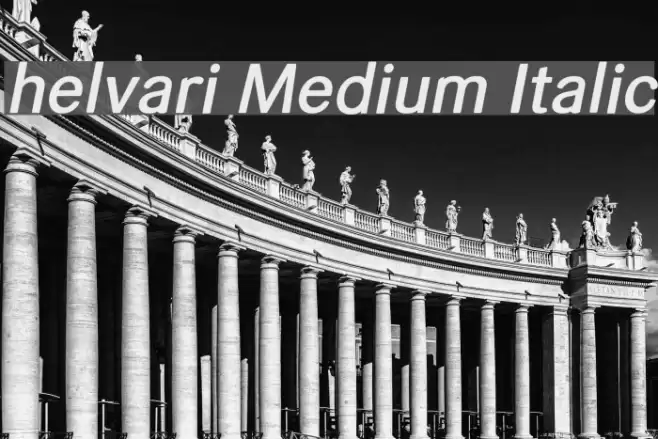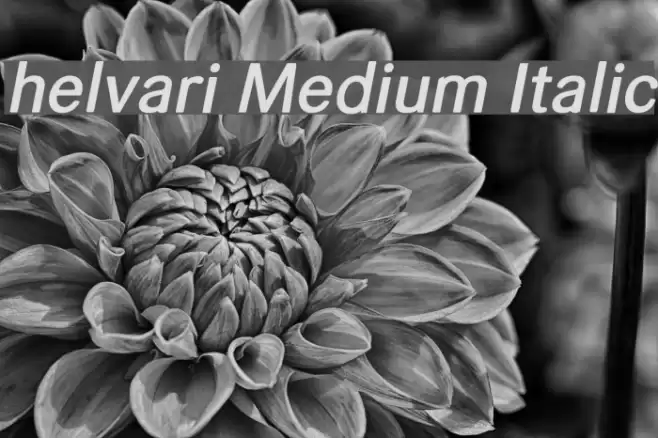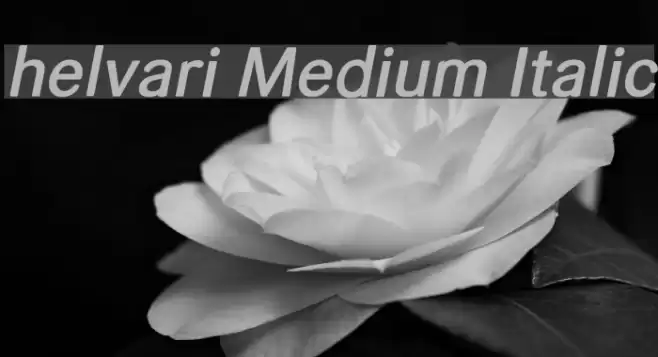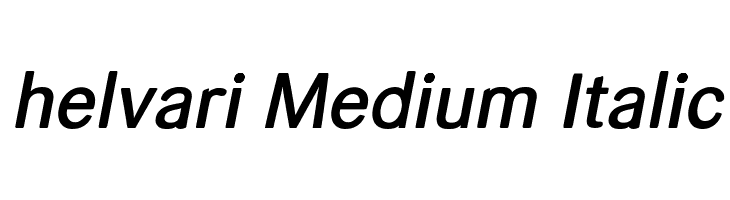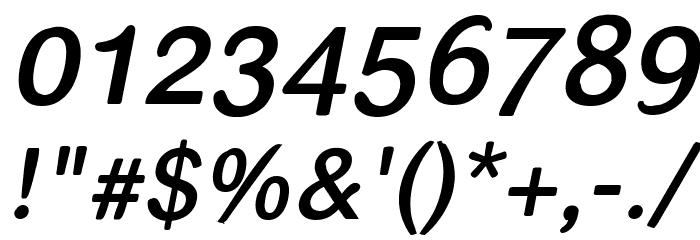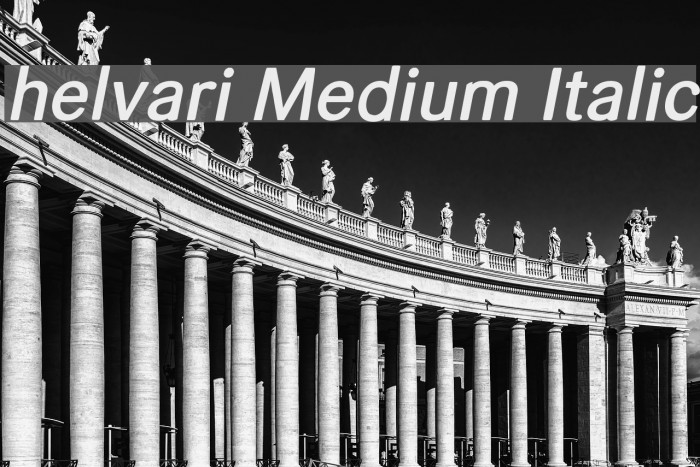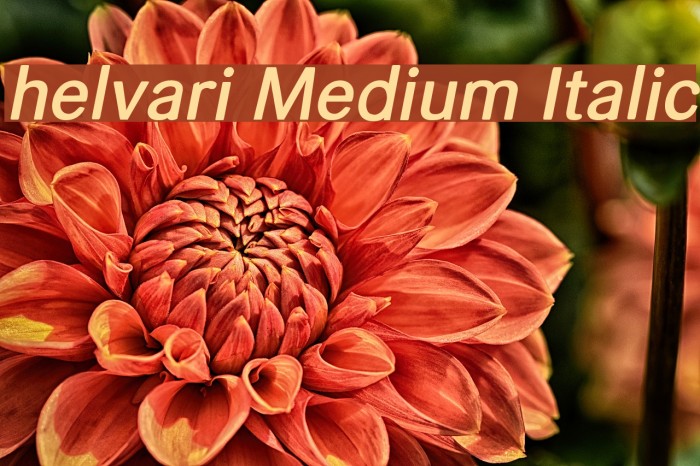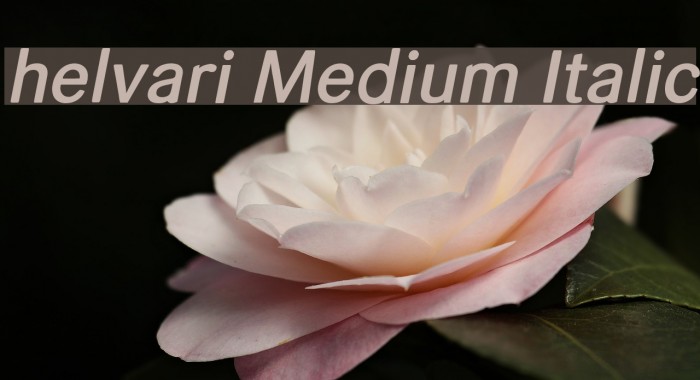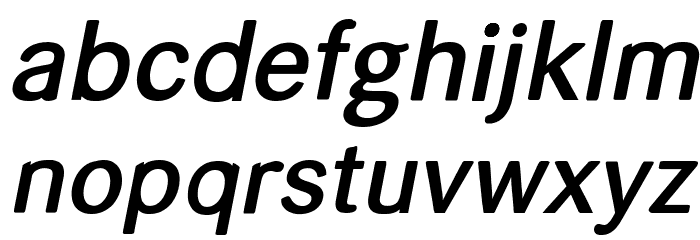
helvari Medium Italic Font
helvari Medium Italic Description
This font features a clean and modern design with a slight slant, giving it an italicized appearance. The characters are well-proportioned with smooth curves and consistent stroke widths, providing a harmonious and professional look. The uppercase and lowercase letters maintain a uniform style, ensuring readability and versatility. The numerals are clear and distinct, making them suitable for various applications. Special characters are included, enhancing its usability across different contexts. Overall, this font exudes a contemporary and sleek aesthetic.
A modern, italicized font with clean lines and a professional appearance from Uncategorized fonts.
- Proposed Projects: Ideal for branding, advertising, editorial design, and digital content where a modern and professional look is desired.